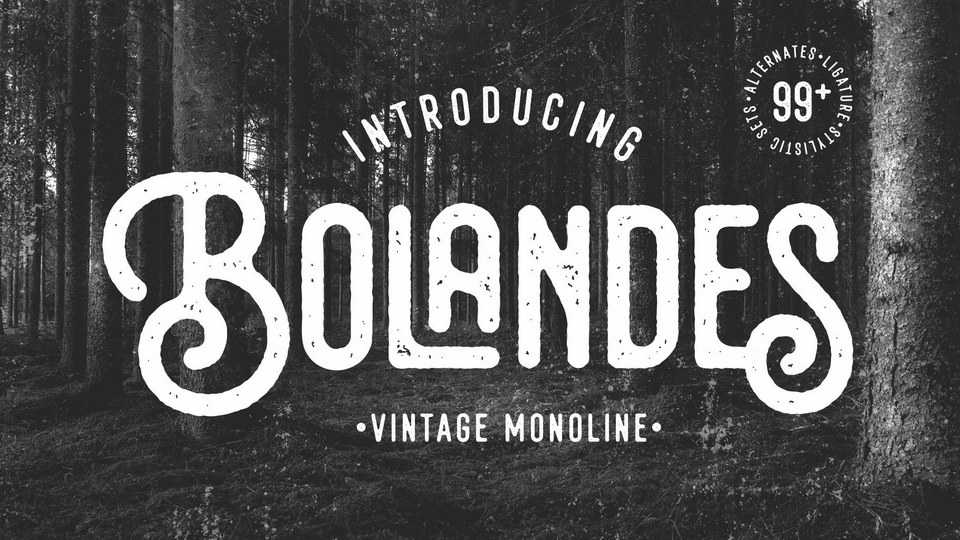
Download Bolandes font, a handcrafted vintage monoline typeface, inspired by the vintage signage which visualizes a letterpress/inky looks and modern calligraphy. Bolandes is.perfect for logos, apparel, labels, posters, quotes, signage, packaging, and more